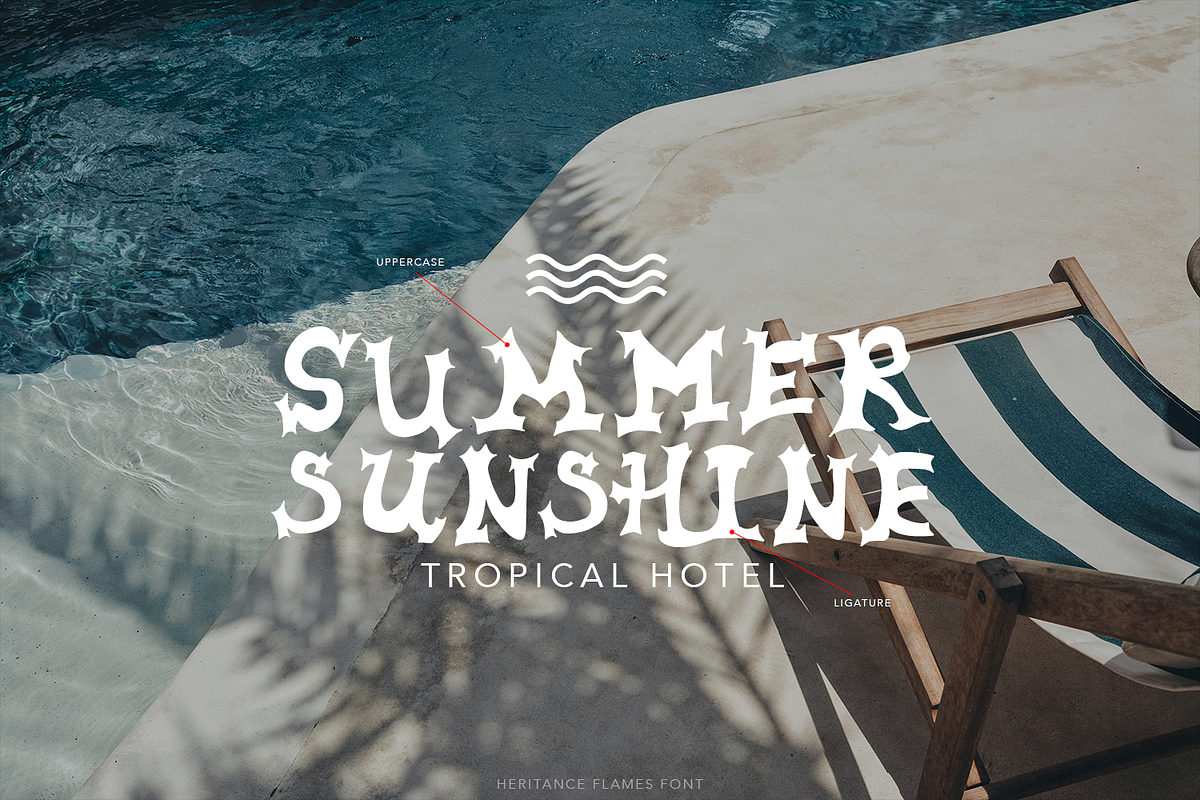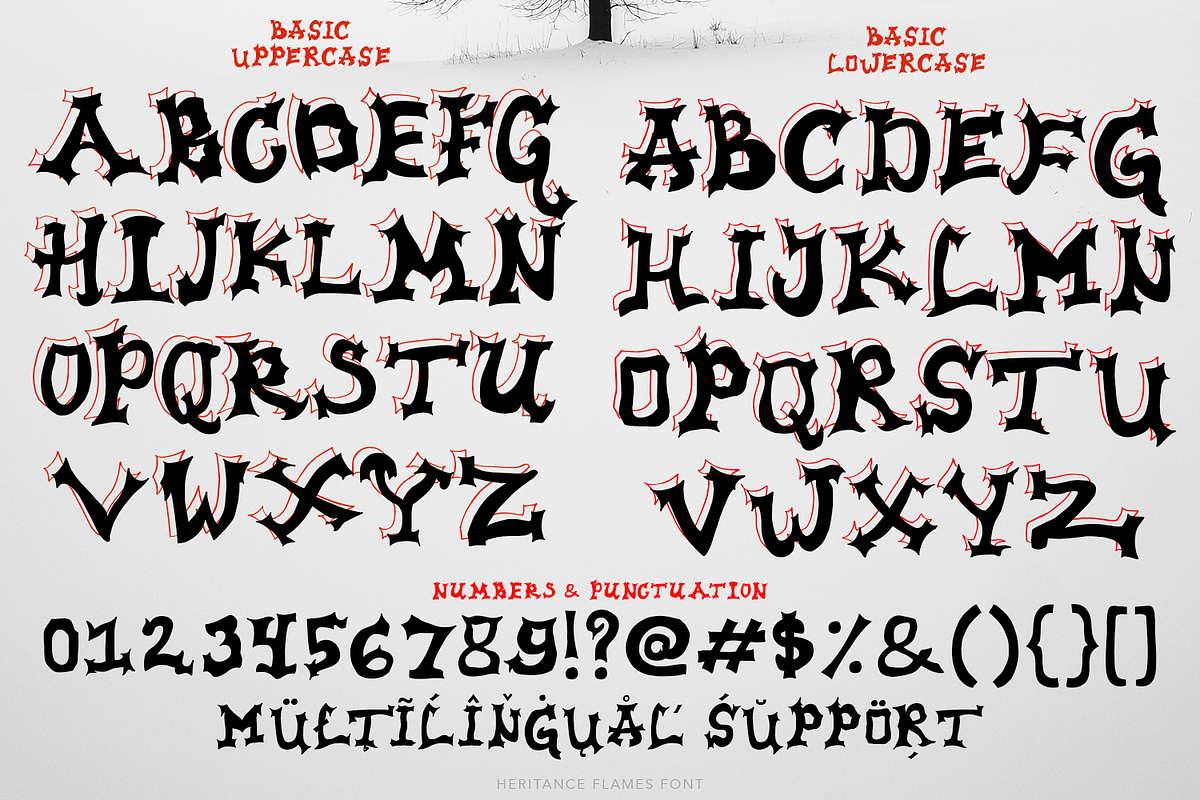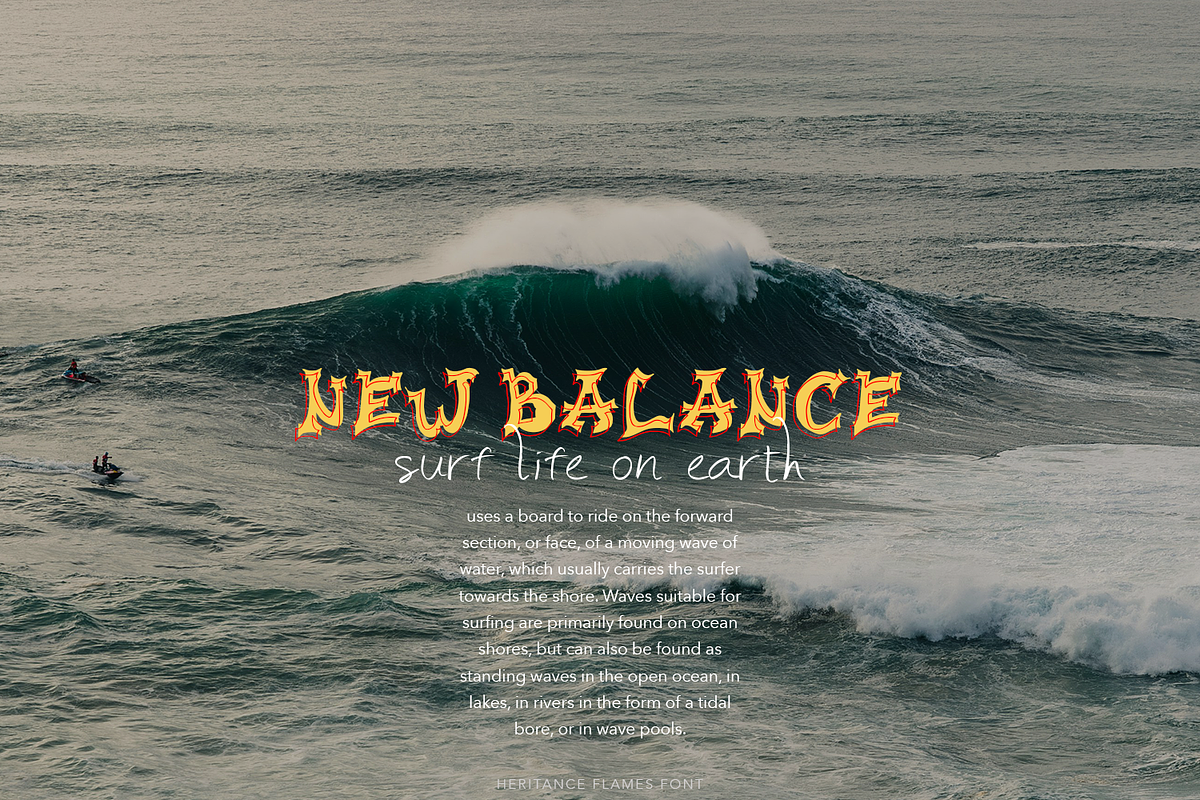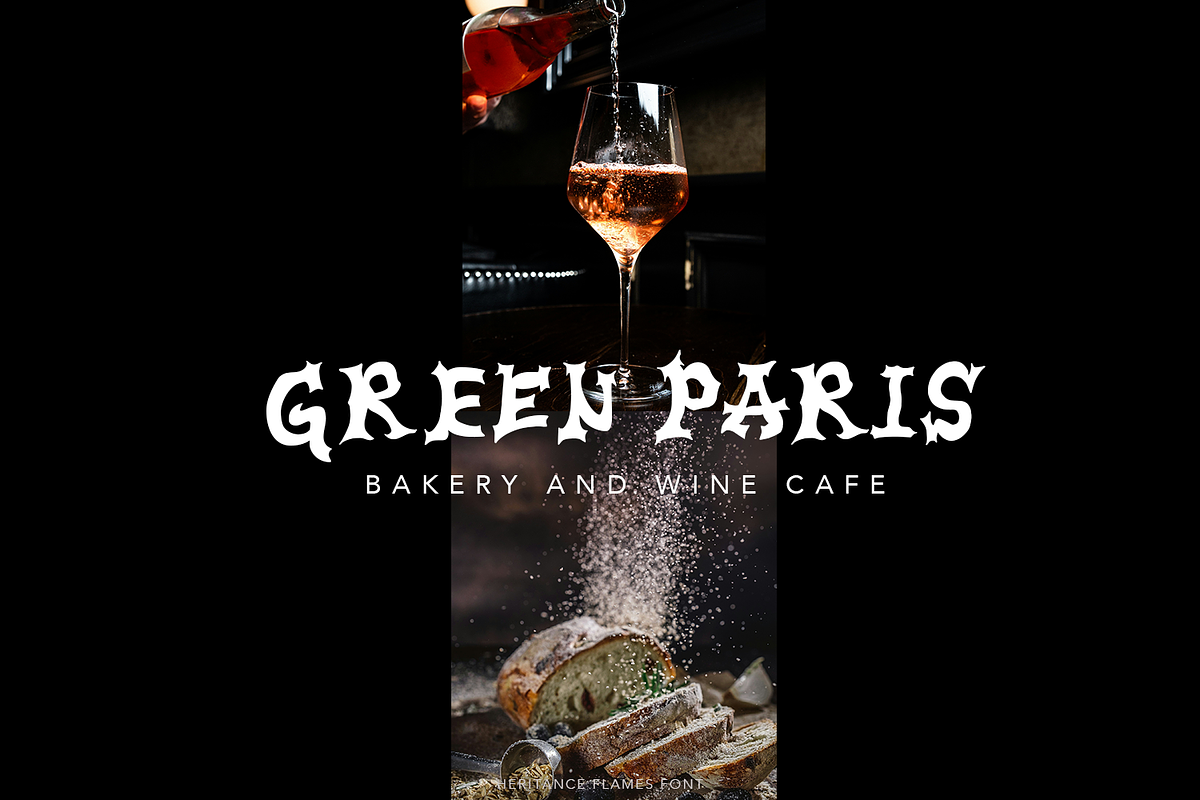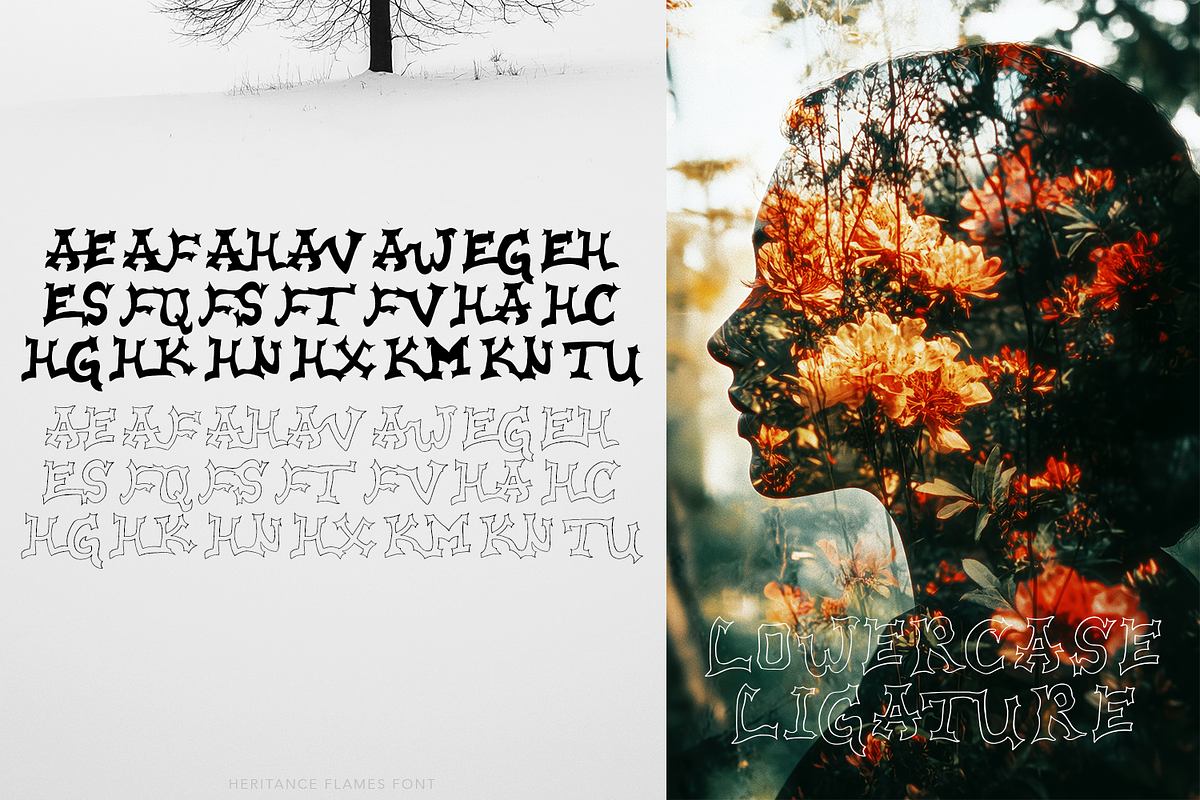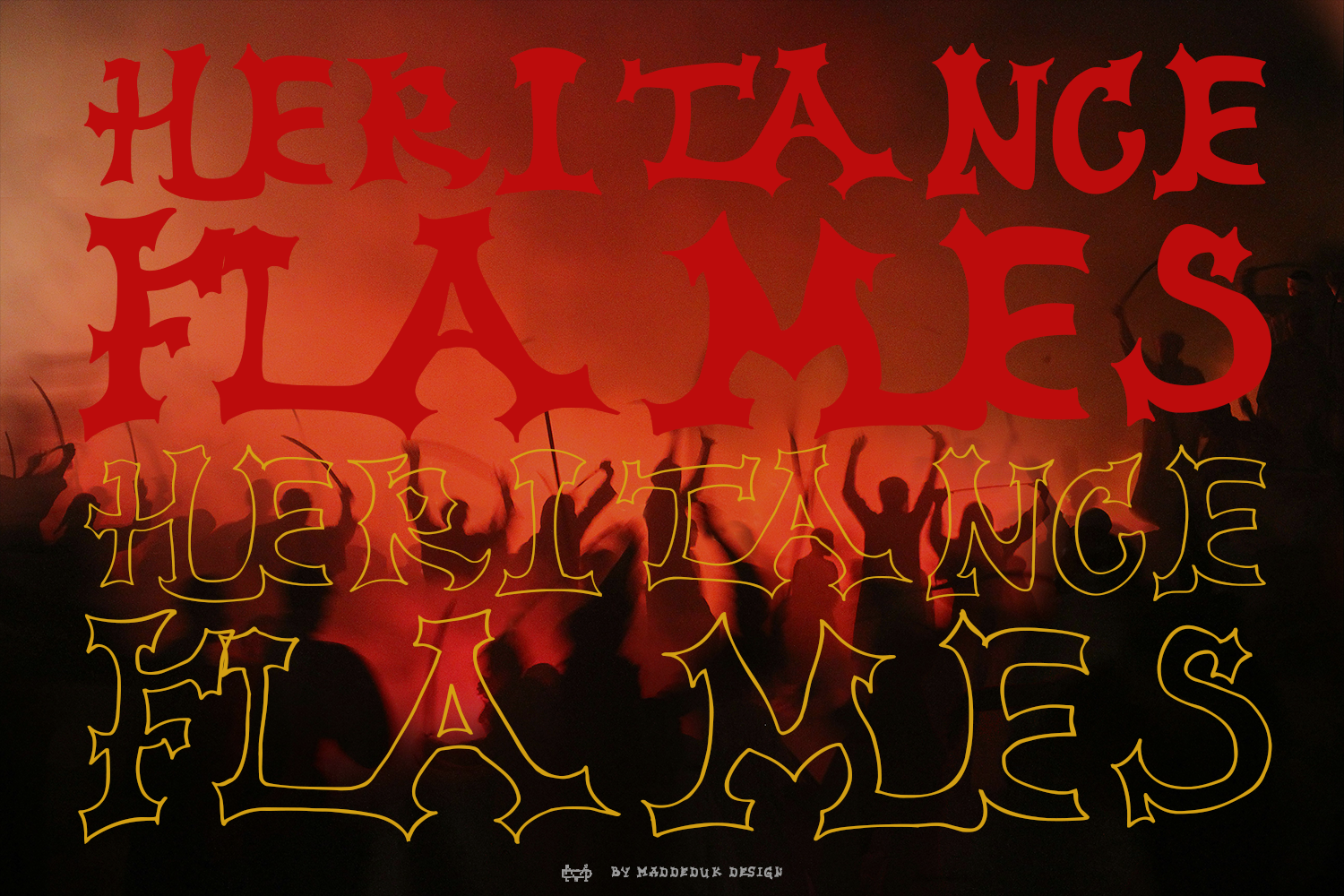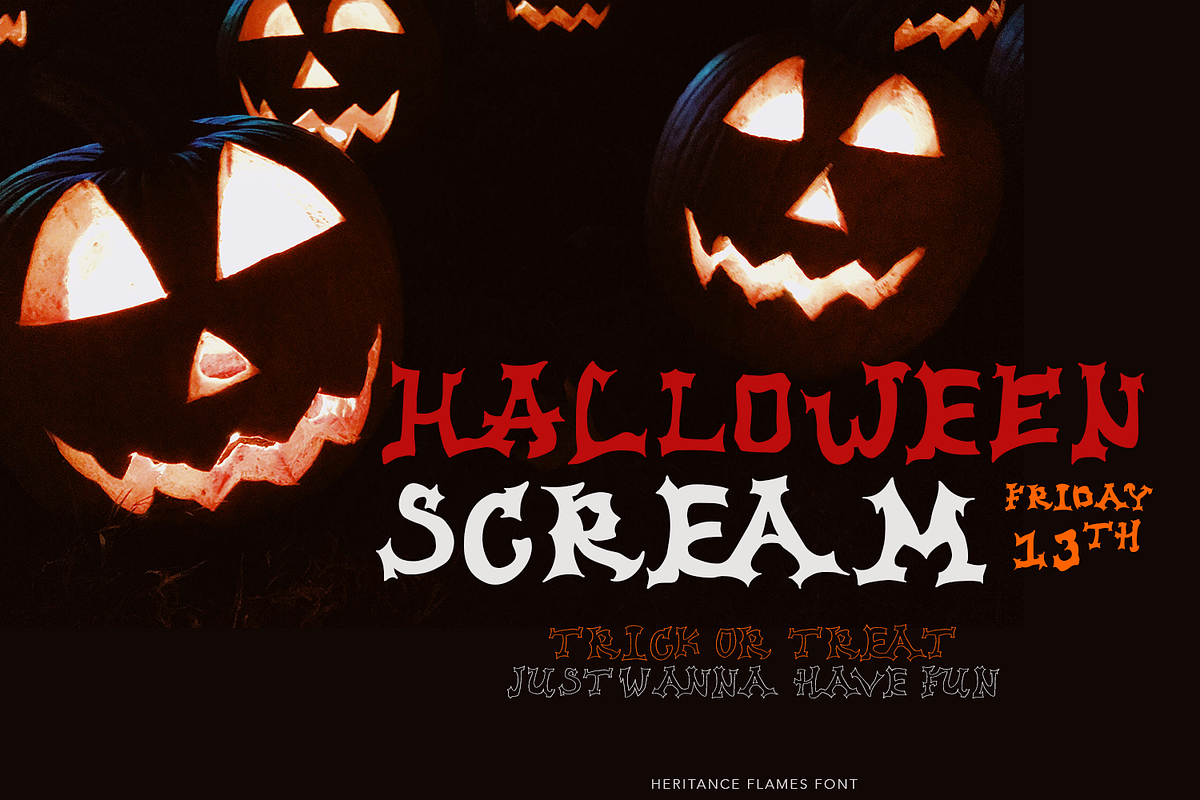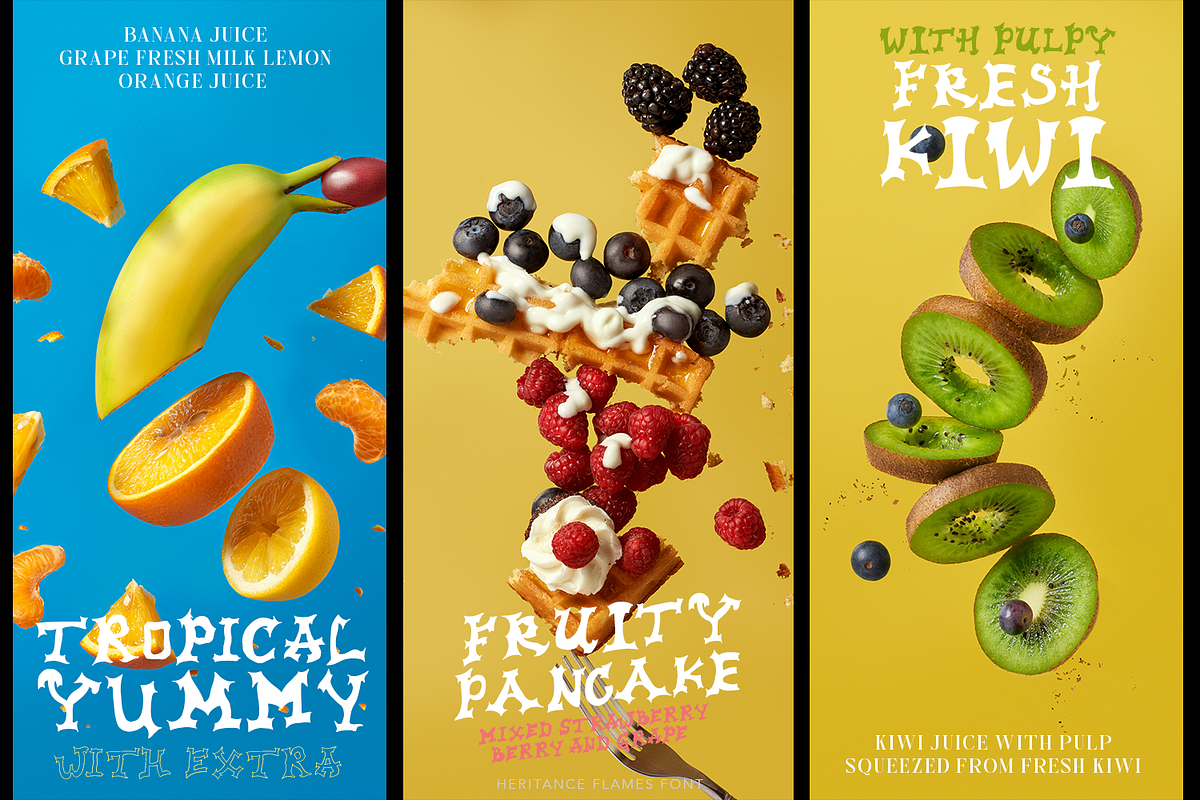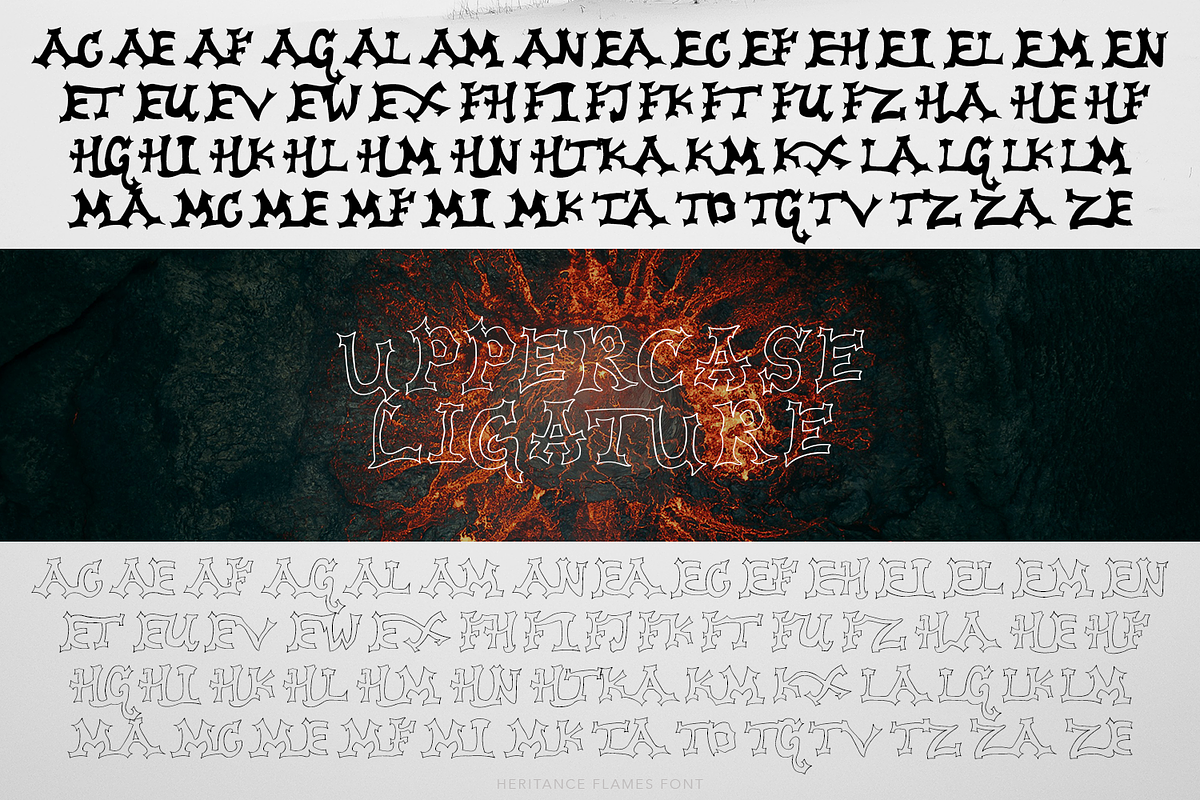
Heritance Flames Font
Introducing Heritance Flames is a fun hand-drawn font that is lettered in all caps and comes in two styles, an outline version and a filled version. Add and use this font to your favorite creative idea or anything you can think of and see the results.
- International Glyphs